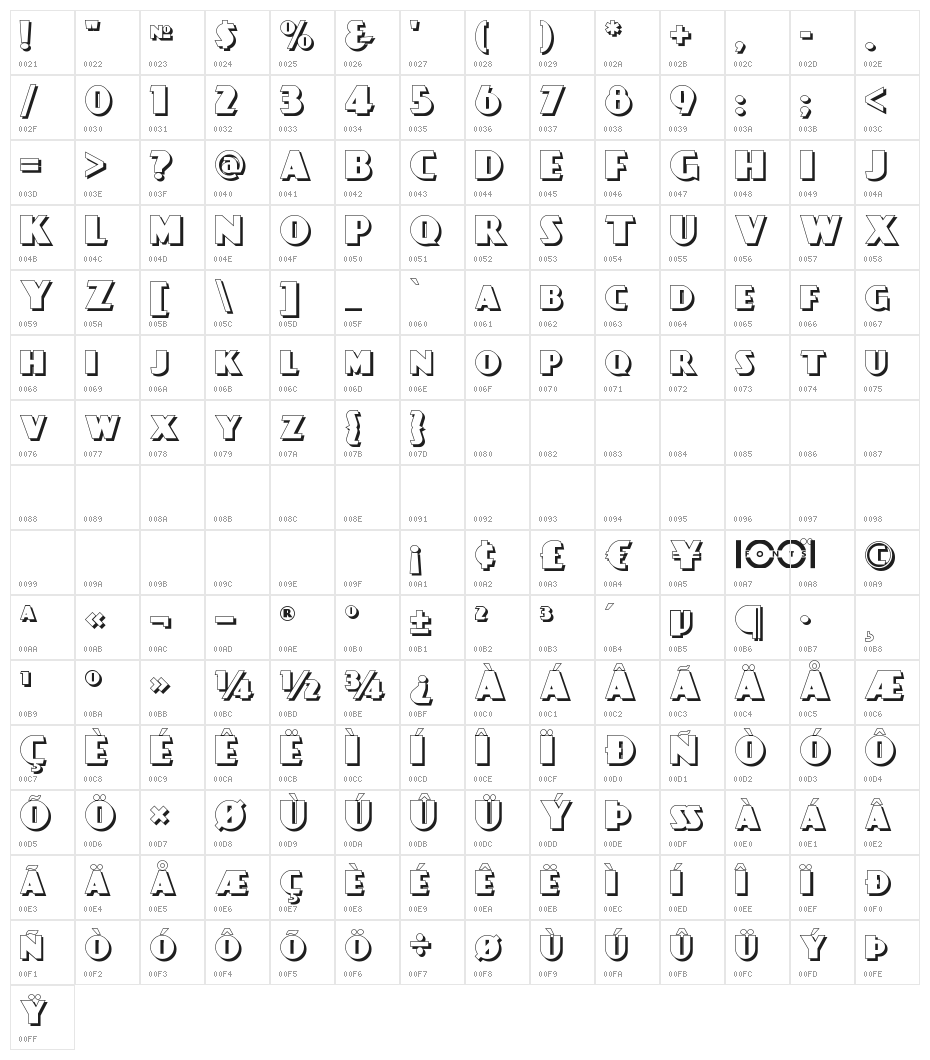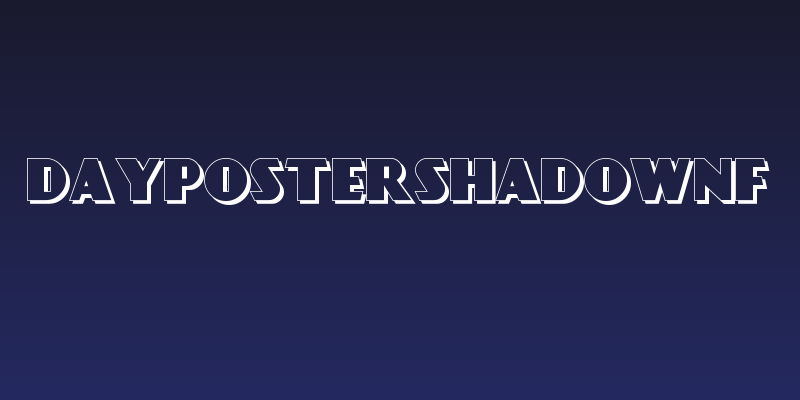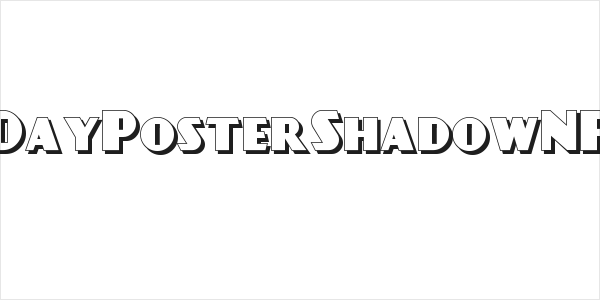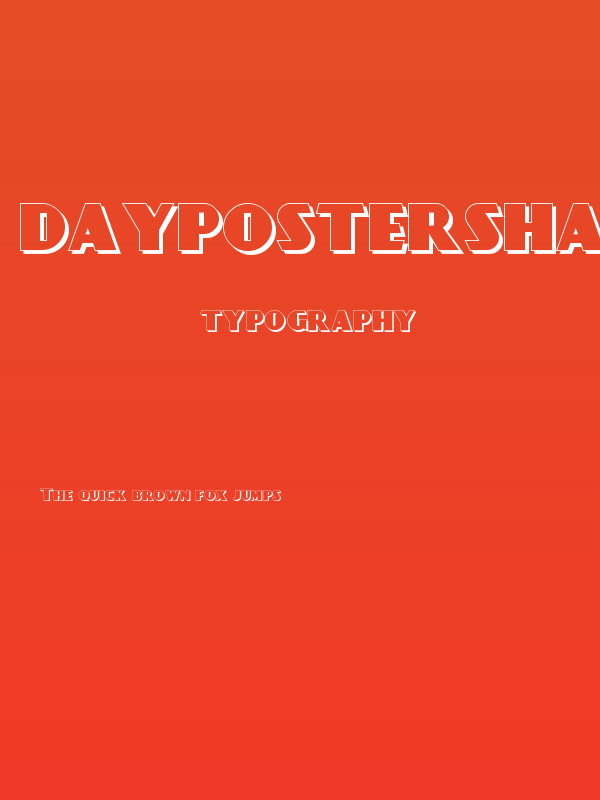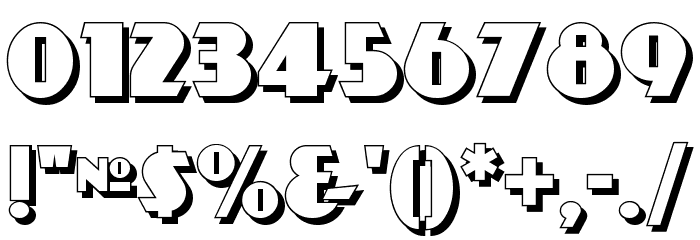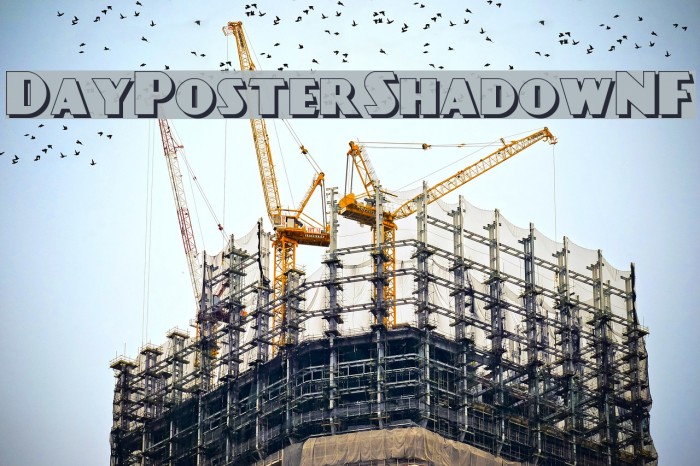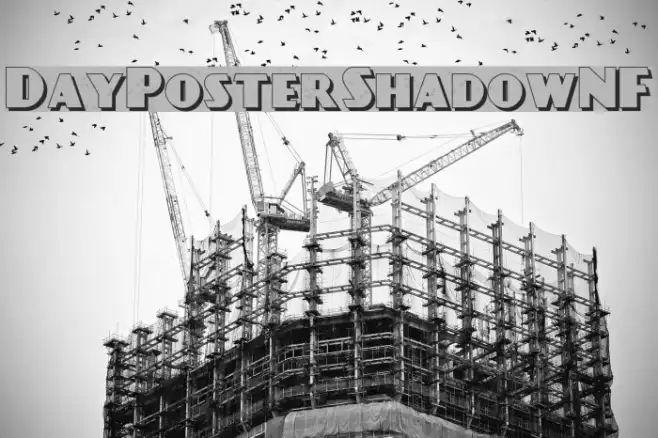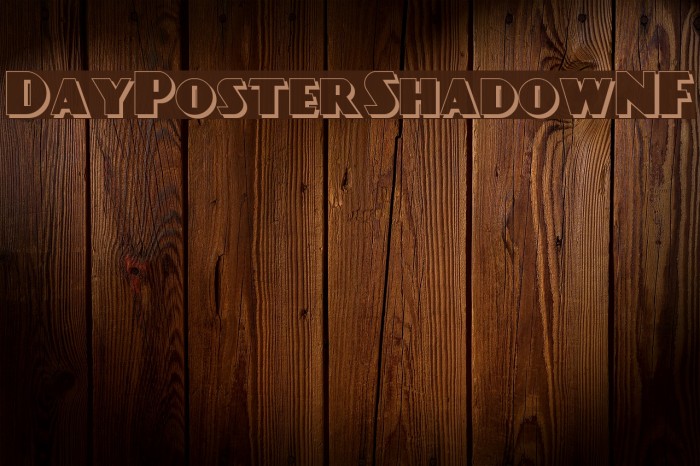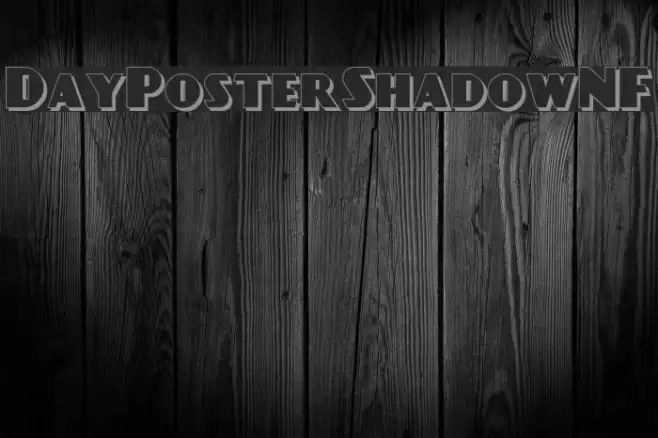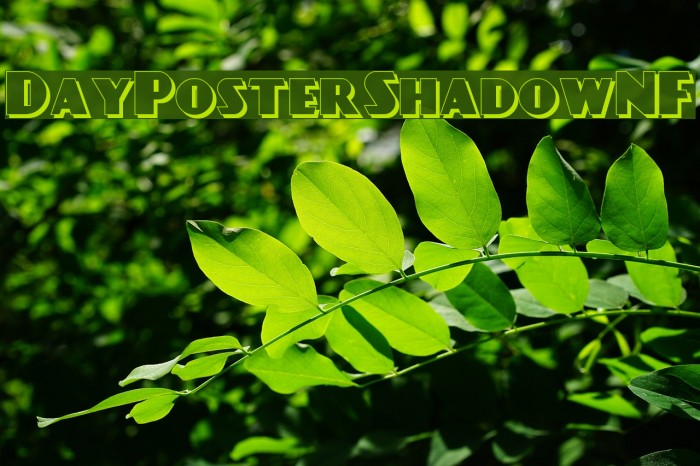
DayPosterShadowNF Font
DayPosterShadowNF Description
This font features bold, three-dimensional characters with a distinct shadow effect that gives it a striking, impactful appearance. The letters are uppercase and have a geometric, block-like structure with clean lines and sharp angles. The shadowing adds depth, making the characters stand out prominently. The numbers and special characters follow the same bold and shadowed style, ensuring consistency across all glyphs. This design is reminiscent of vintage poster typography, offering a nostalgic yet bold aesthetic.
| Proposed Projects | Ideal for retro-themed posters, eye-catching headlines, branding materials, and any design requiring a bold, vintage aesthetic. |